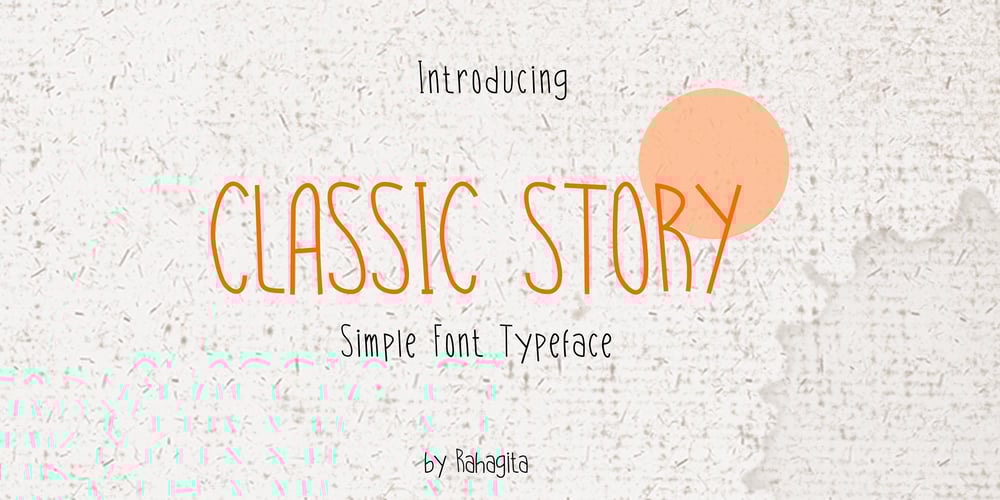
Classic Story Font Family was designed by Setiadi Rahagita and published by RahagitaType. Classic Story contains 1 styles and family package options. Classic Story is a suitable font for quotes that match love, affection and hope. In addition, you can use it as a headline on a poster, banner, name card, wedding invitation, and more.